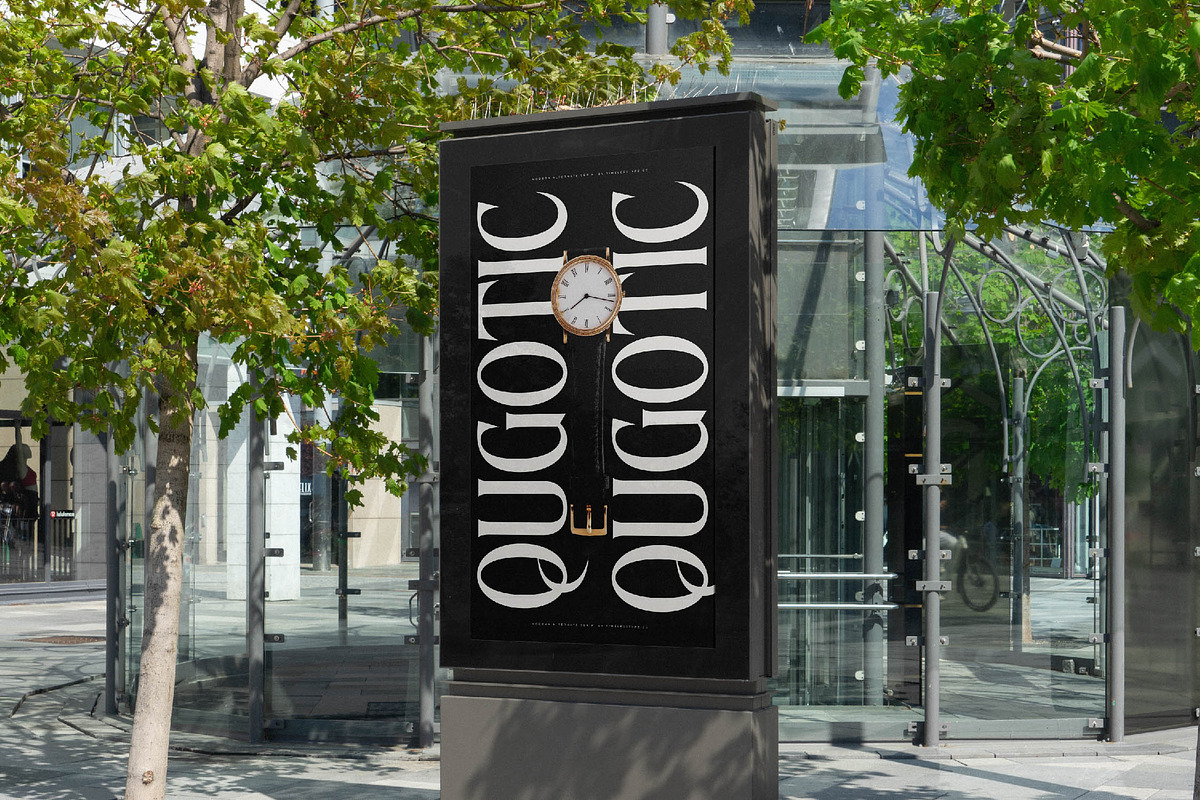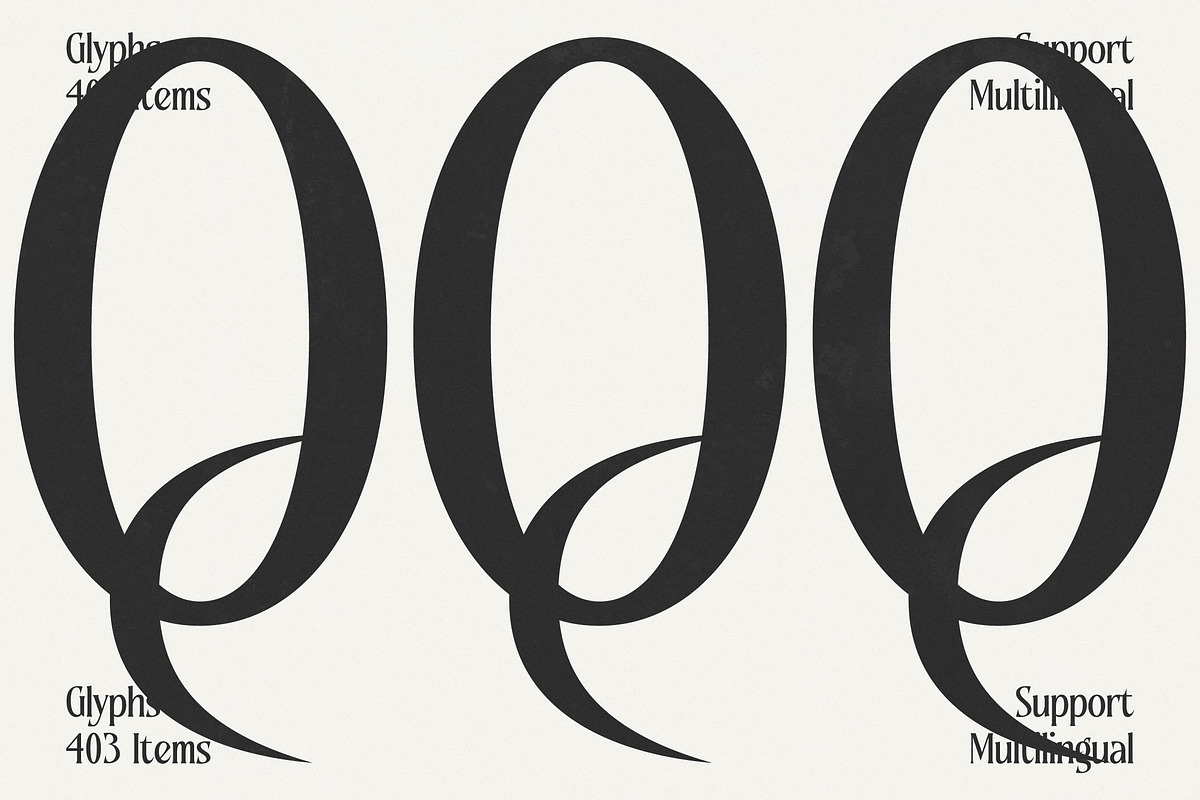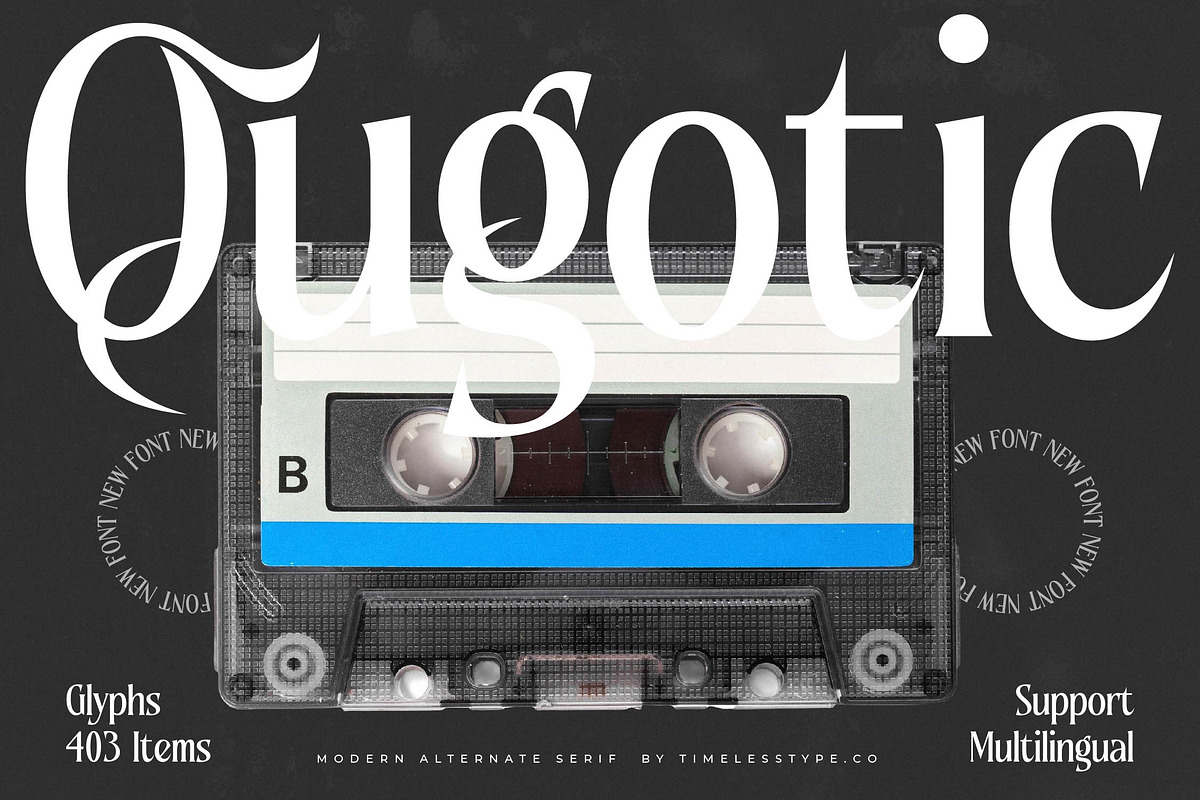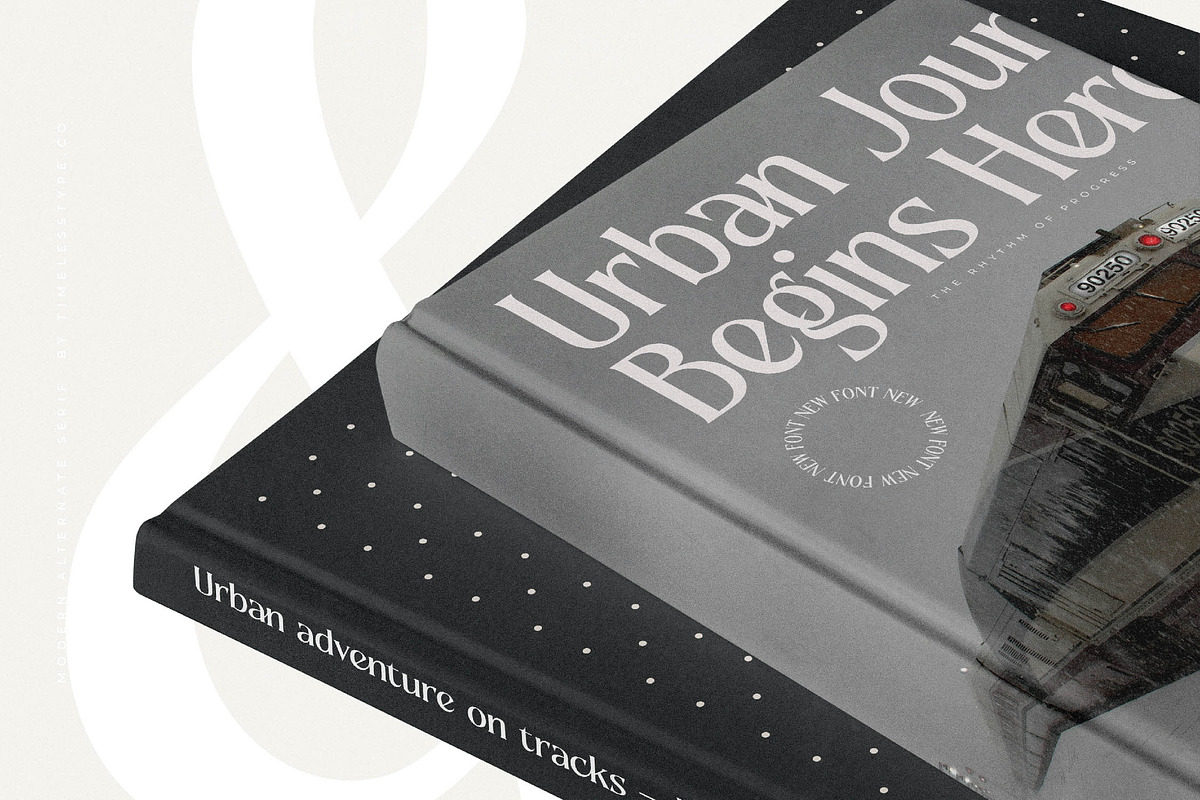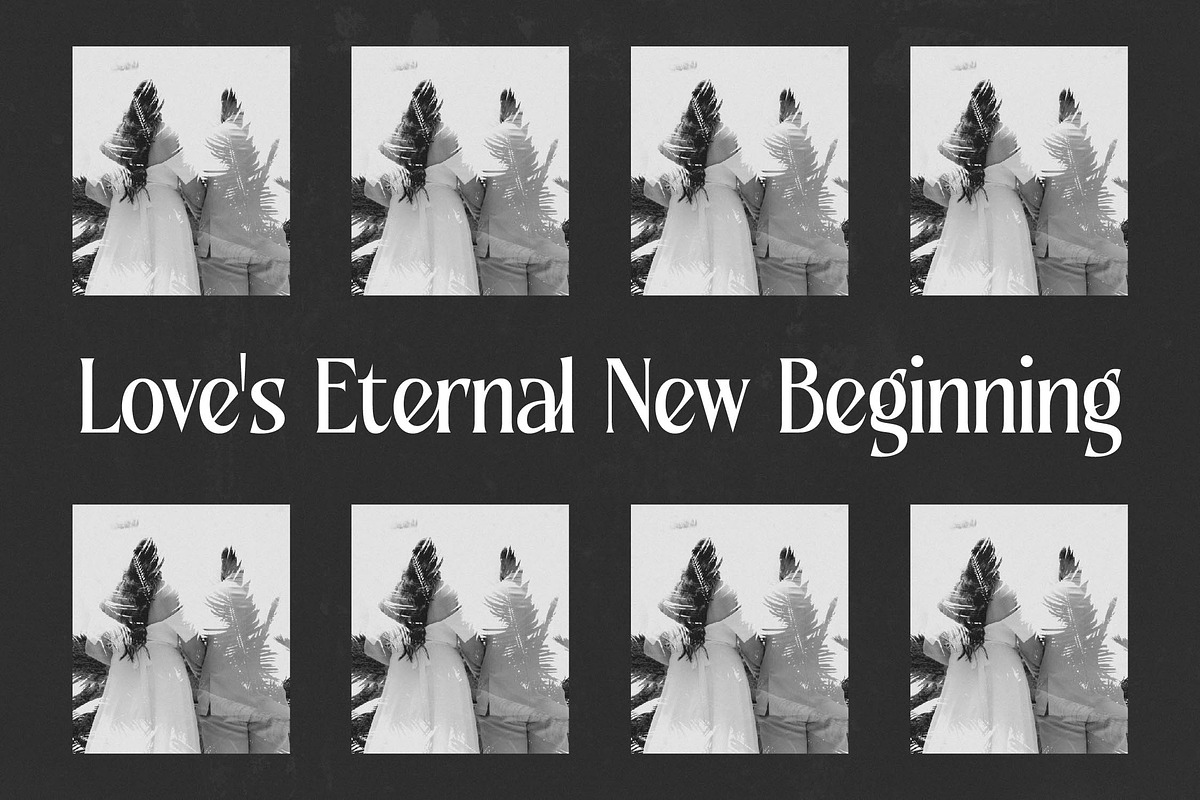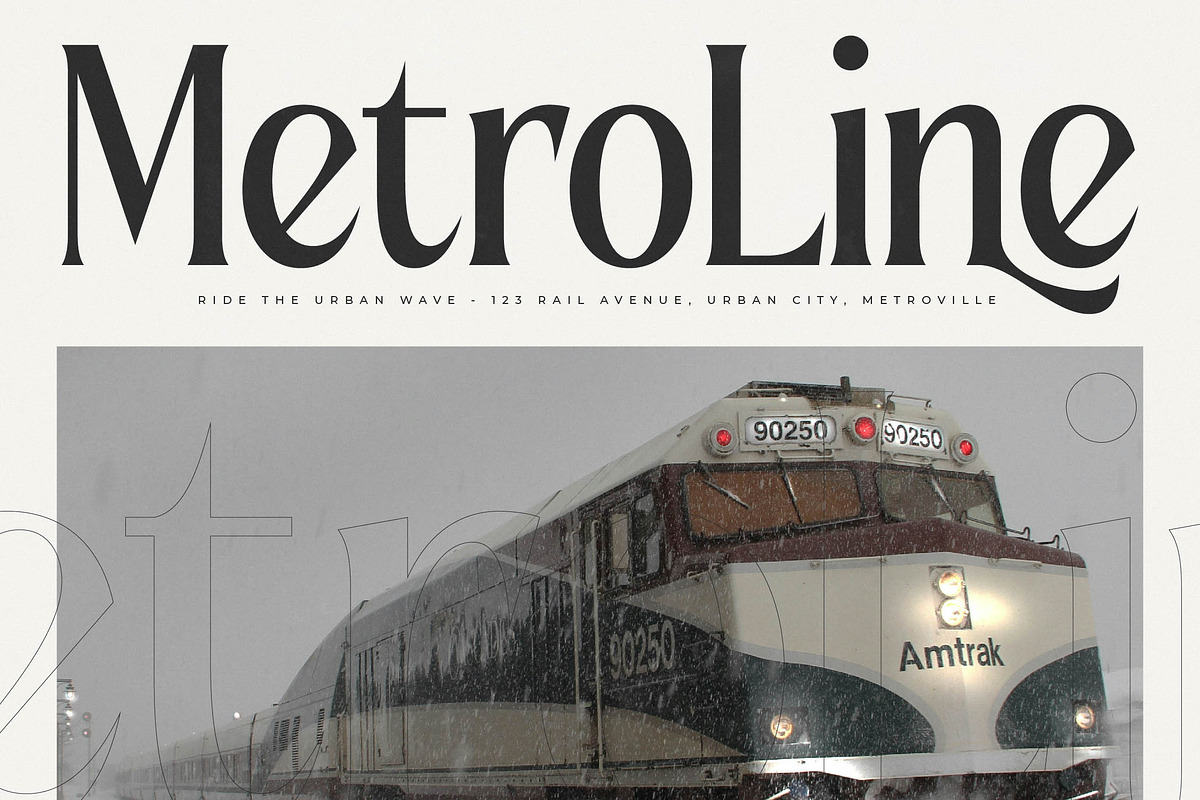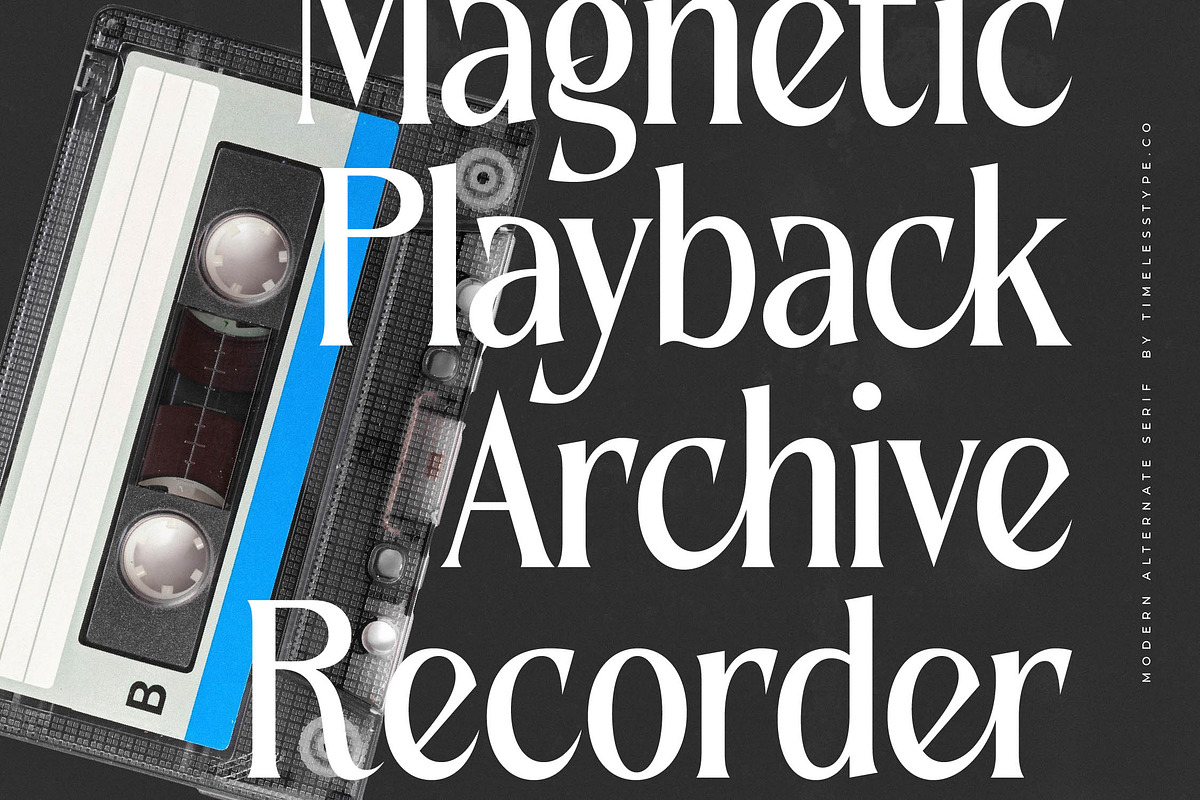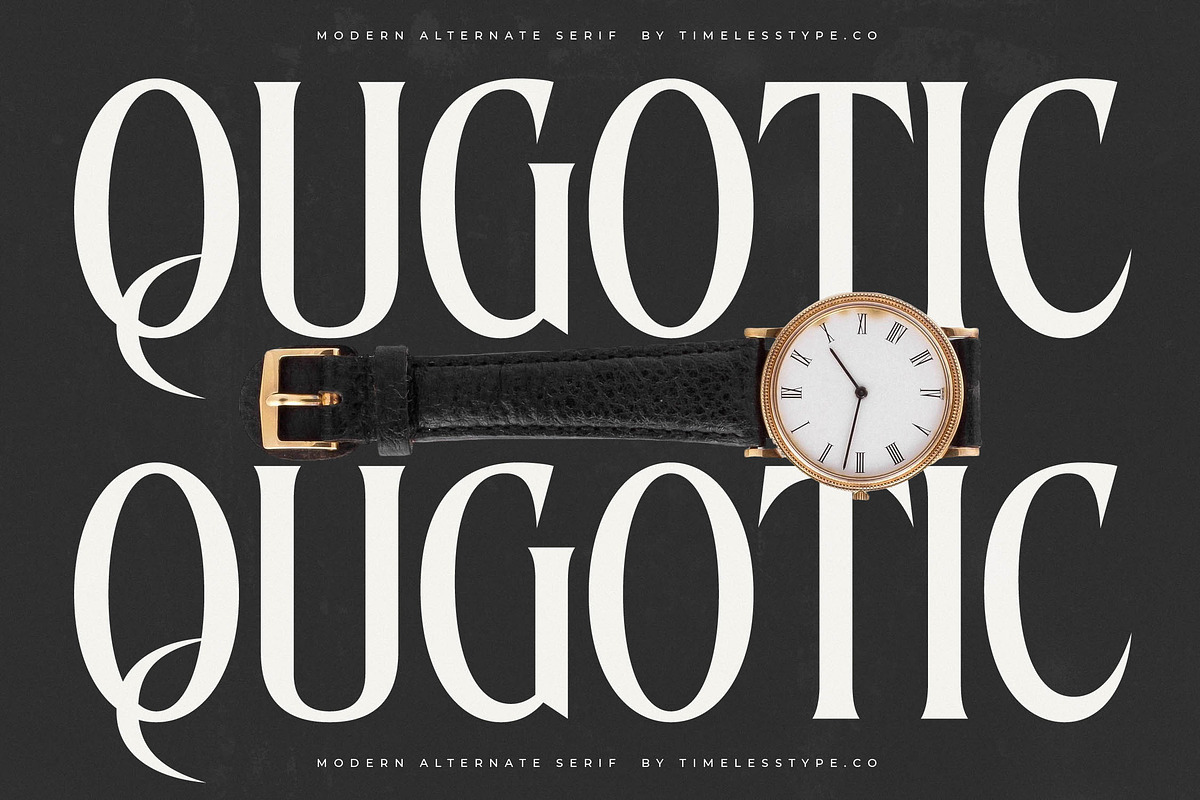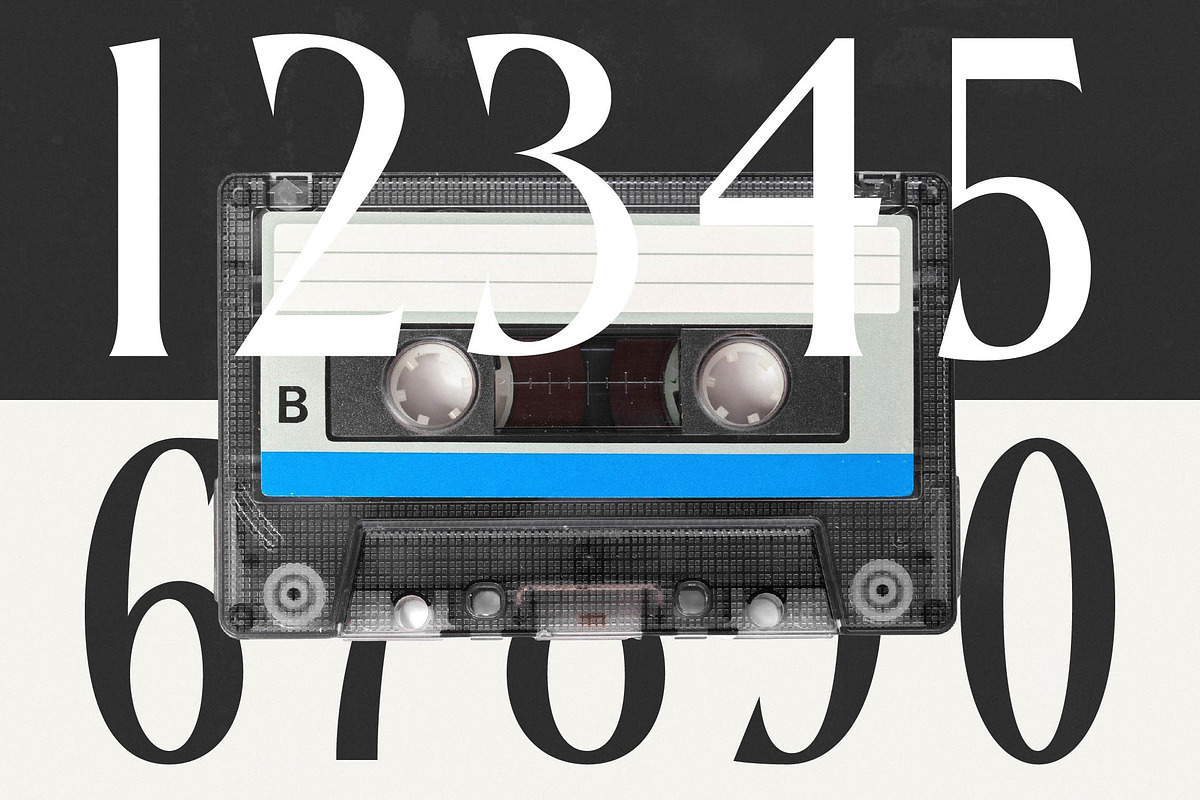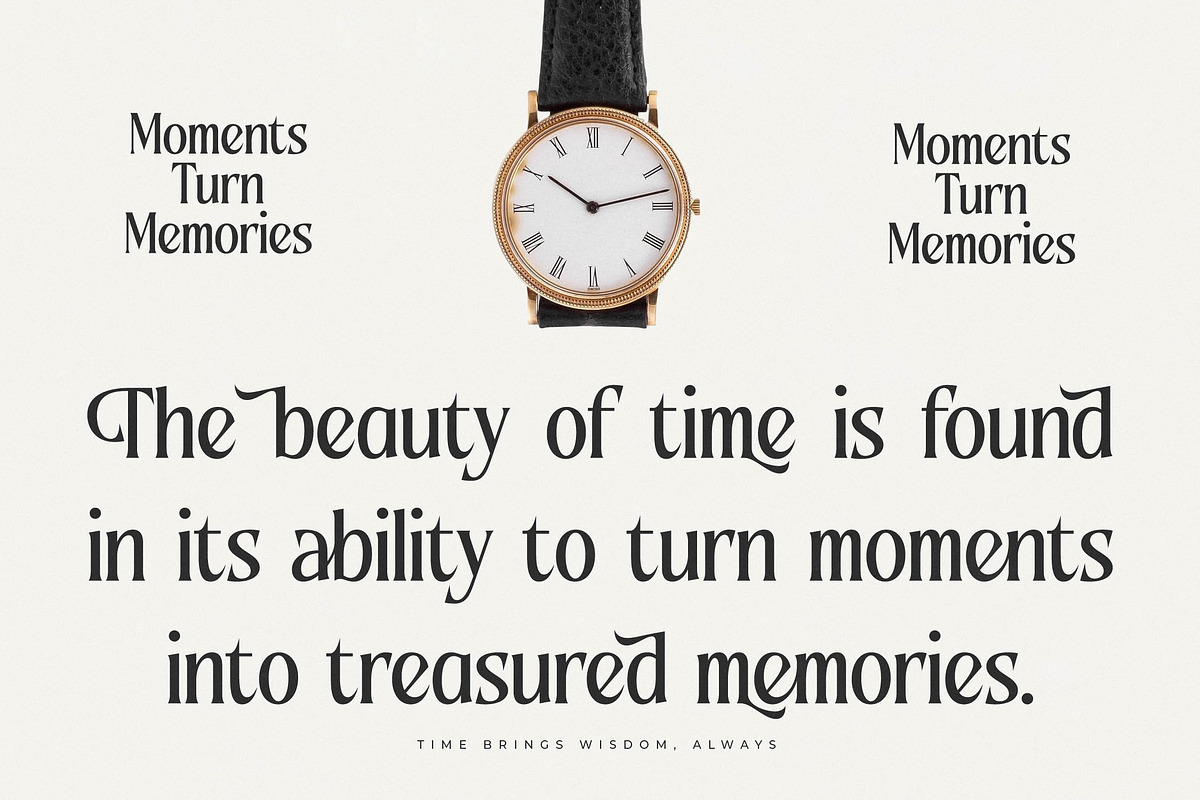
Qugotic Modern Alternate Serif
Elevate your visual identity with the captivating allure of Qugotic, a typeface designed to command attention and inspire wonder. It bridges the gap between classic elegance and contemporary edge, making every character a statement of pure sophistication.
Drawing inspiration from the rhythmic flow of retro aesthetics mixed with high-fashion editorial layouts, this font captures a unique energy that feels both nostalgic and futuristic. The juxtaposition of sharp edges and fluid curves mirrors the transition from vintage analog charm to the sleek precision of the digital age.
This modern serif display offers an unparalleled luxury typography experience that delivers a powerful branding impact. With its high-contrast serif strokes and refined silhouettes, it serves as the ultimate editorial font for those who refuse to settle for the ordinary.
Tapping into the current modern serif trend, this typeface is perfect for designers seeking editorial display fonts that feel alive. Its character-driven typography allows for expressive layouts that resonate with today's sophisticated visual culture and high-end aesthetic demands.
Whether you are crafting a standout logo design or developing a cohesive brand identity, this versatile tool excels in branding and editorial projects. It is perfectly suited for luxury packaging, romantic wedding stationery, and avant-garde fashion lookbooks.
Packed with over 400 glyphs, the set includes stunning ligatures and creative alternates alongside expressive swashes. Extensive multilingual support ensures your message reaches a global audience with full access to international characters.
- Ligature 32 Alternate 39